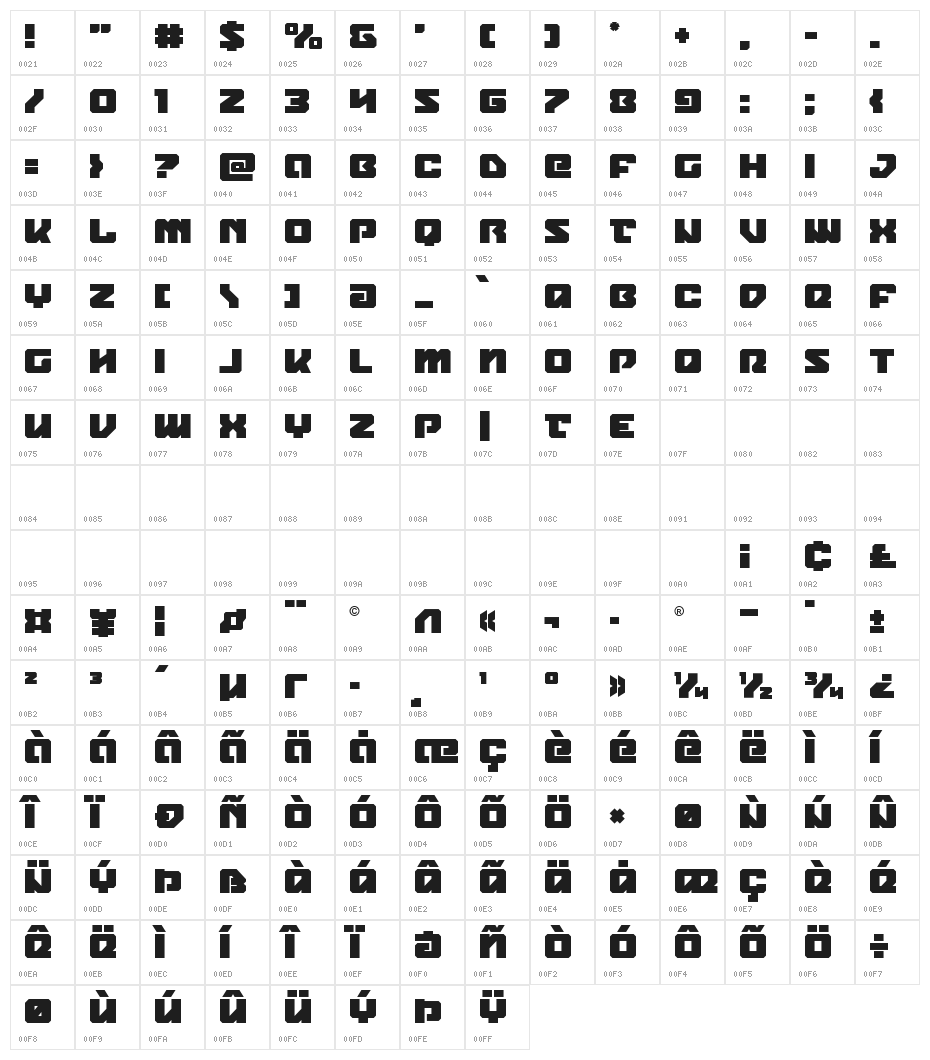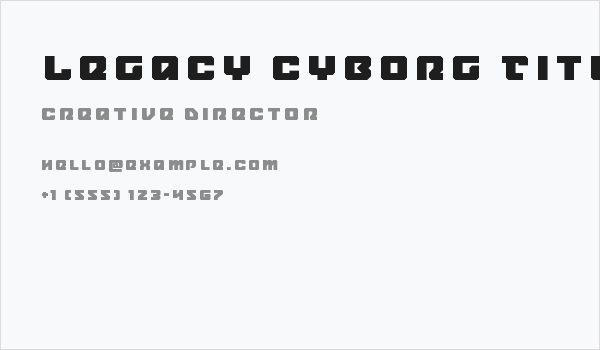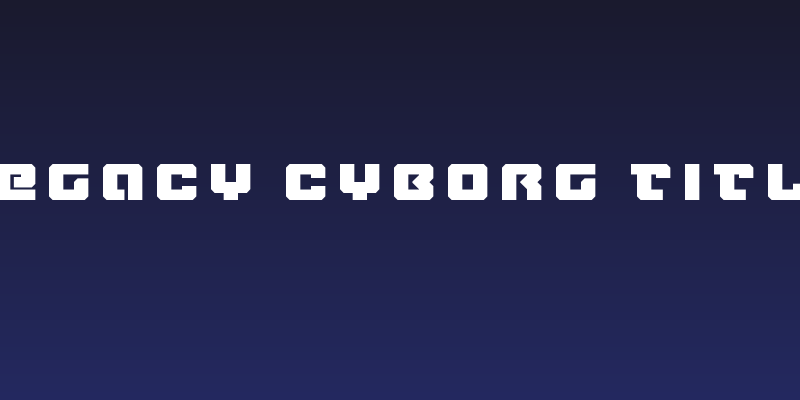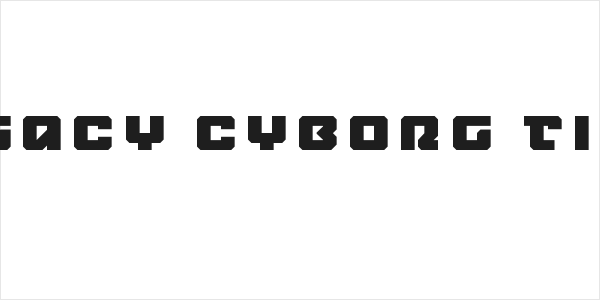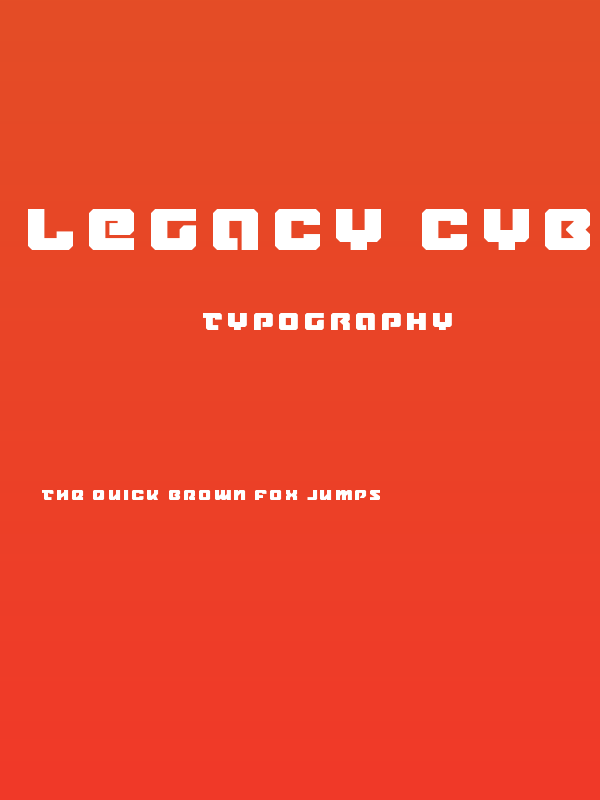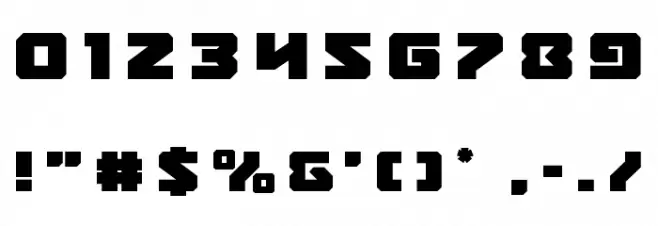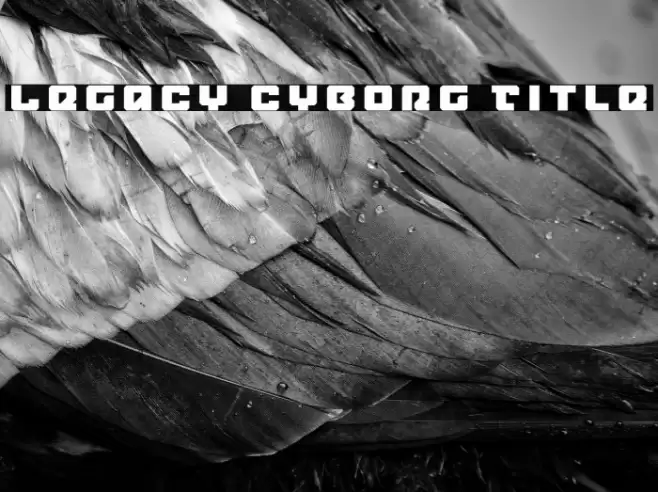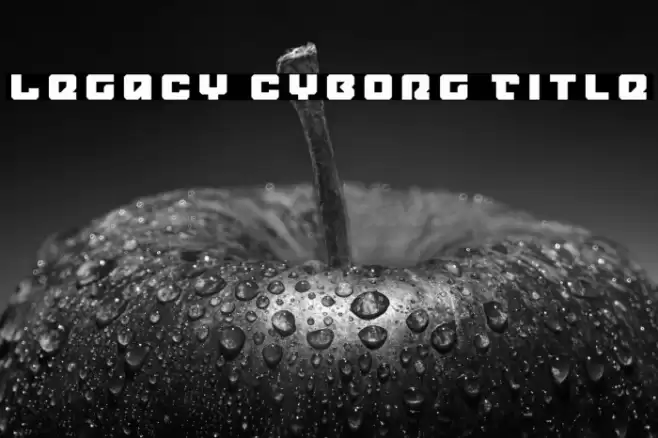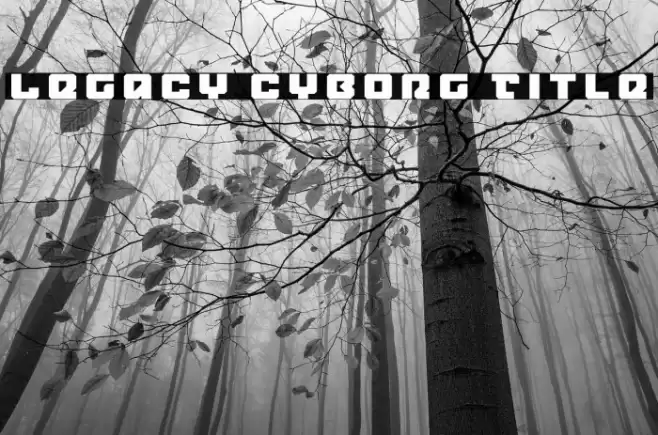
Legacy Cyborg Title Font
This font features a bold, futuristic design with a strong geometric influence. The characters are constructed with sharp angles and straight lines, giving it a distinctly mechanical and digital appearance. The uppercase letters are particularly striking, with a blocky and robust form that conveys strength and modernity. The lowercase letters maintain this aesthetic, ensuring consistency across the typeface. Numbers and special characters are equally bold, making them stand out in any design. The overall style is reminiscent of science fiction and cyberpunk themes, making it ideal for projects that require a modern and edgy look.
| Proposed Projects | Ideal for sci-fi themed posters, video game titles, tech branding, and futuristic logos. |